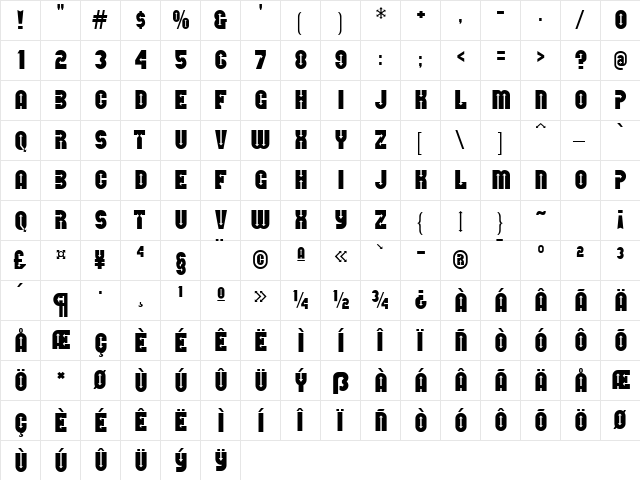
Directions MF Regular
Design Context for Directions MF Typeface
Directions MF offers clean, dependable letterforms without strong stylistic allegiance, making it a practical choice for designers who need flexibility.
Pro Tip: Use Directions MF in both headline and body roles to test its range before committing to a single application.